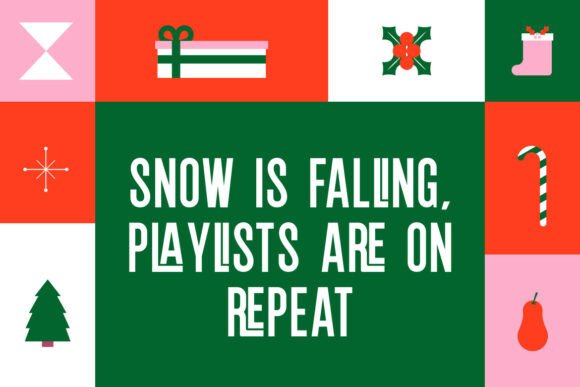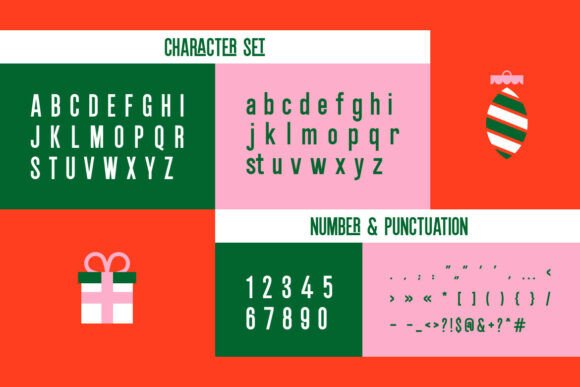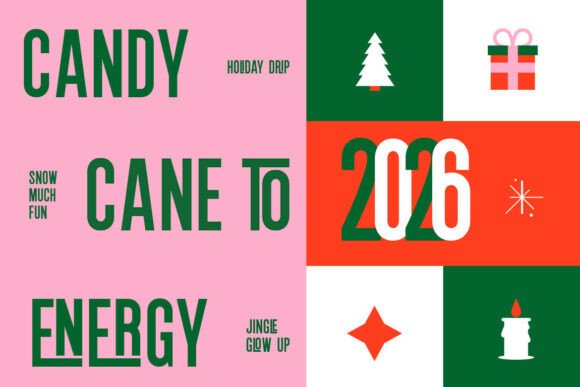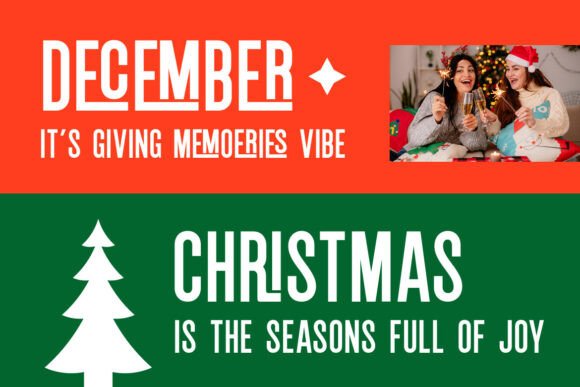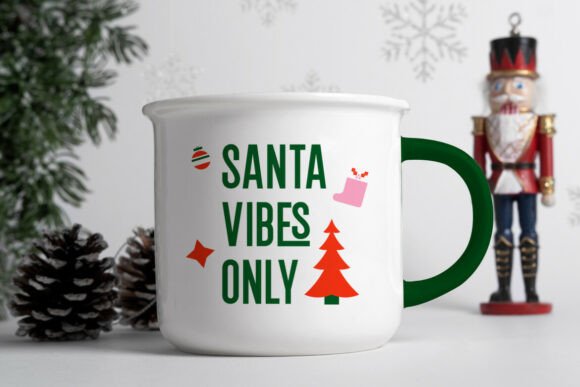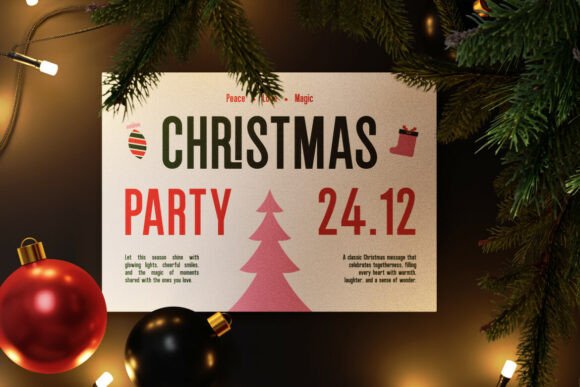
Bringing a Fresh Touch to Winter with Bright Winter Font
As a designer, I’ve had my fair share of holiday projects. From Christmas cards to winter-themed branding, I’ve spent countless hours searching for the perfect font to capture the essence of the season. One project that still stands out in my mind was a Christmas market poster I designed for a local client. I wanted to create something modern and eye-catching, but I was struggling to find a font that wouldn’t feel too kitschy or over-the-top. That’s when I stumbled upon Bright Winter, a modern sans serif font that instantly elevated my design.
First Impressions: A Modern Winter Wonderland
Bright Winter is more than just a holiday font – it’s a statement piece. Characterized by its tall proportions and clean, architectural lines, this font offers a sophisticated alternative to traditional holiday styles. It’s perfect for minimalist winter branding, upscale event posters, and modern retail signage. With its crisp, contemporary edge, Bright Winter brings a fresh touch to the holidays.
- ✅ Clean and modern design: Bright Winter’s sleek lines and tall proportions make it perfect for creating a sophisticated winter look.
- ✅ Versatile: This font works beautifully for both digital and print projects, from social media graphics to event posters.
- ✅ Easy to read: Despite its modern design, Bright Winter remains highly legible, even at smaller sizes.
- ✅ OpenType features: This font comes with a range of OpenType features, including stylistic alternates and glyphs, which can add an extra layer of creativity to your designs.
- ⚠️ Limited holiday-specific characters: While Bright Winter has a great selection of characters, it may not have every holiday-specific symbol you need. Be sure to check the font’s capabilities before committing to a project.
- ⚠️ May not work well with very ornate designs: Bright Winter’s clean design can get lost if paired with very ornate or busy backgrounds. Balance is key when working with this font.
The Story Behind Bright Winter
Bright Winter was designed with the modern holiday season in mind. Its creator aimed to craft a font that would bring a fresh, contemporary edge to winter designs. Inspired by the clean lines and minimalism of modern architecture, Bright Winter is the perfect choice for designers looking to create a sophisticated winter wonderland.
Q: What makes Bright Winter unique?
A: Bright Winter’s tall proportions and clean, architectural lines set it apart from traditional holiday fonts.
Q: Does Bright Winter support OpenType features?
A: Yes, Bright Winter comes with a range of OpenType features, including stylistic alternates and glyphs.
Q: Is Bright Winter suitable for body text?
A: While Bright Winter is highly legible, its modern design may not be the best choice for long blocks of body text. It’s better suited for headlines, titles, and short paragraphs.